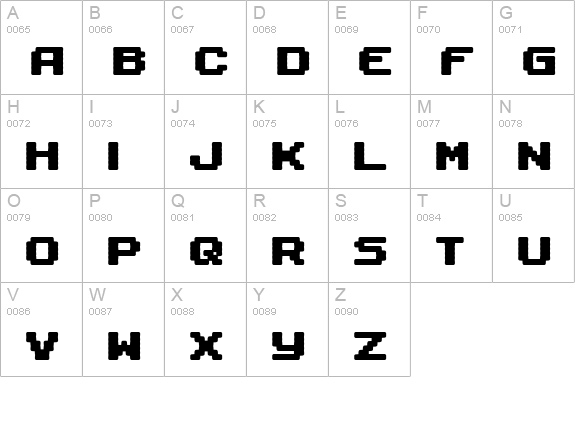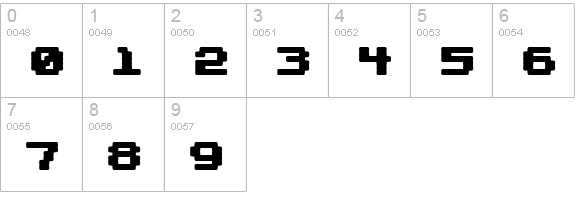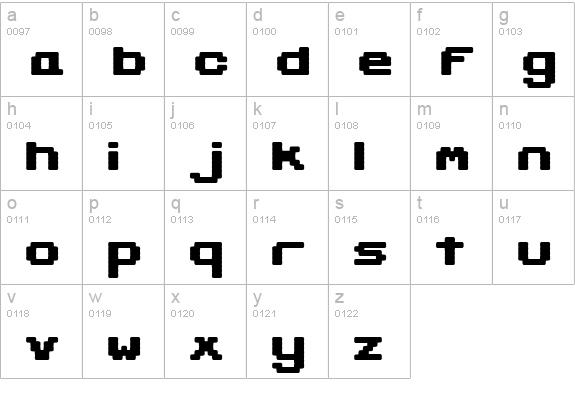
Gaposis Solid (BRK) Font Details
Gaposis Solid (BRK) is a captivating and versatile font that is sure to make a bold statement in any design project. Its strong and solid letterforms exude confidence and authority, making it perfect for headlines, logos, and branding materials. With its unique geometric shapes and clean lines, Gaposis Solid (BRK) is both modern and timeless, making it suitable for a wide range of applications. Whether you're designing a sleek website, a striking poster, or a professional business card, this font will add a touch of sophistication and elegance to your work. One of the most remarkable features of Gaposis Solid (BRK) is that it is available for free download at FontsMarket.com. This means that you can enjoy the benefits of this outstanding font without any cost. It's a fantastic opportunity to enhance your design projects without breaking the bank. Downloading Gaposis Solid (BRK) from FontsMarket.com is quick and easy, allowing you to start using it in your designs right away. The font file is compatible with various design software, ensuring seamless integration into your creative workflow. Don't miss out on this amazing font that combines strength, style, and affordability. Get your hands on Gaposis Solid (BRK) today and elevate your design projects to new heights with its timeless appeal and versatility. Download it for free at FontsMarket.com and experience the power of this remarkable font for yourself.